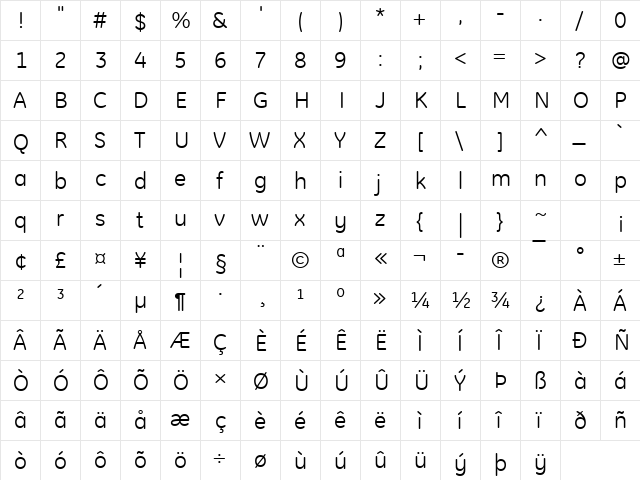
GE Inspira Regular
| Foundry | Agfa Monotype Corporation |
Design Context for GE Inspira Typeface
GE Inspira is a composed and adaptable typeface that performs quietly and consistently across a wide range of design contexts.